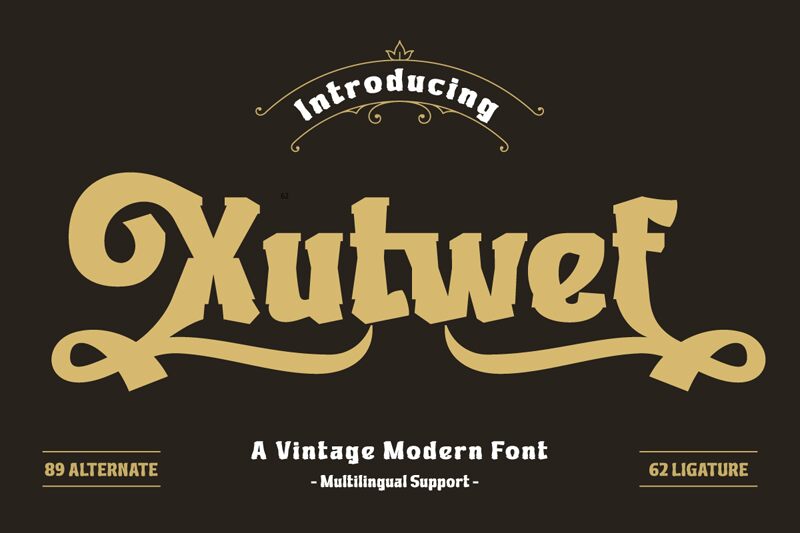
Xutwef Trial Regular
Xutwef font, created by the innovative designer Twinletter, is a bold display marvel that captivates with its striking presence. This compelling font stands out with its robust and blocky design, making it perfect for grabbing attention in any project. The bold style of Xutwef ensures high visibility and impact, ideal for headlines, posters, or branding materials.
As a free font available for download, Xutwef offers designers an excellent opportunity to make a significant visual statement without cost. Its unique character exudes confidence and creativity, allowing it to complement modern designs brilliantly. Whether you're crafting eye-catching advertisements or distinctive logos, Xutwef provides the perfect typographic solution to elevate your design projects.